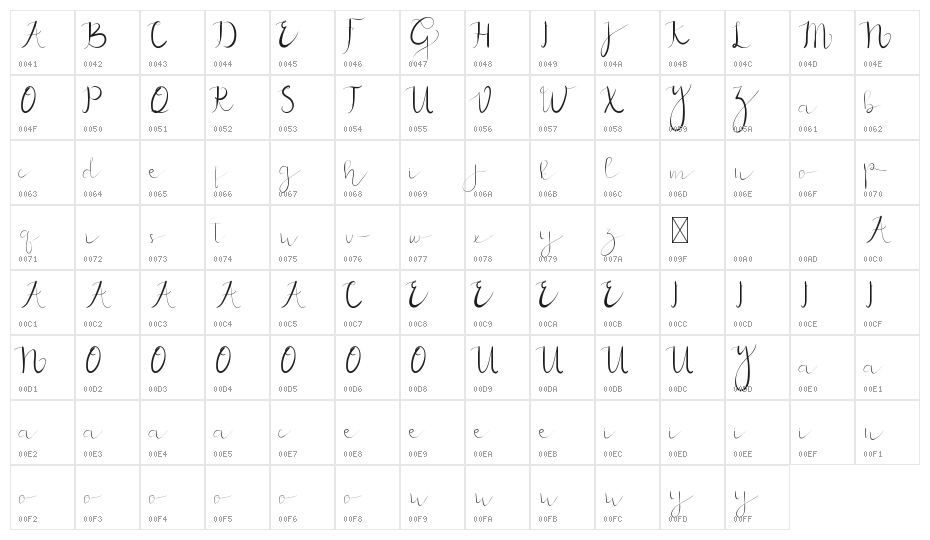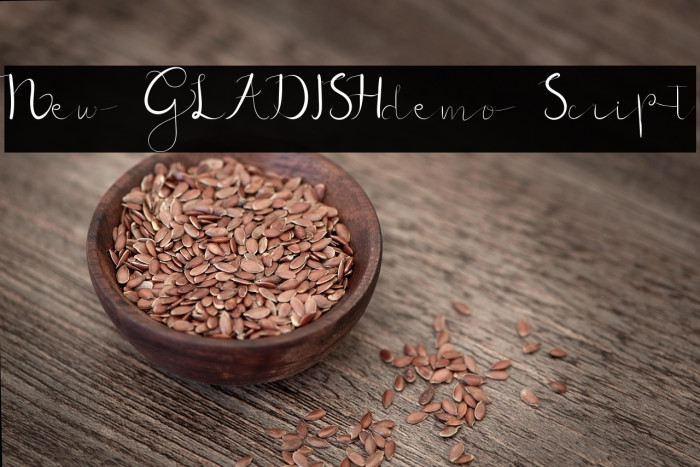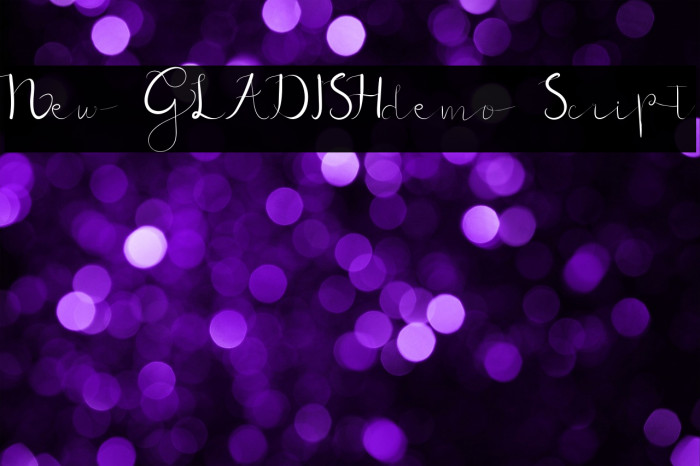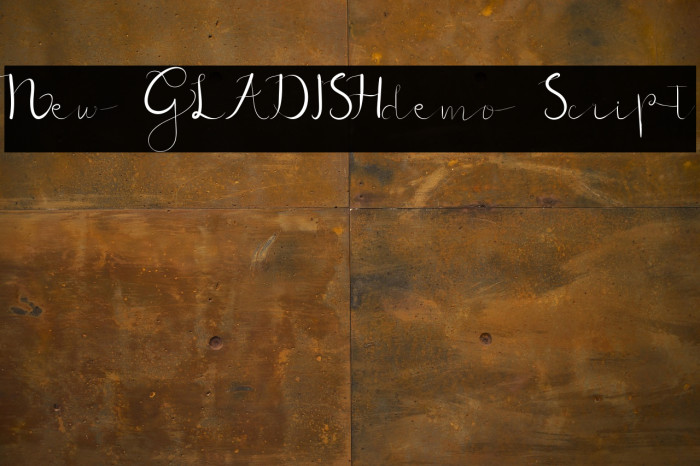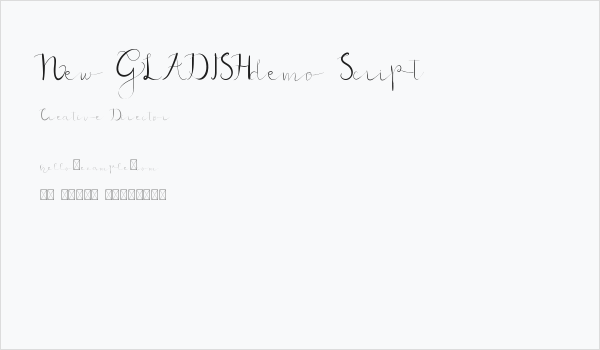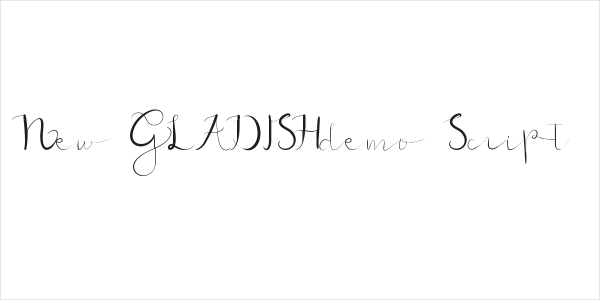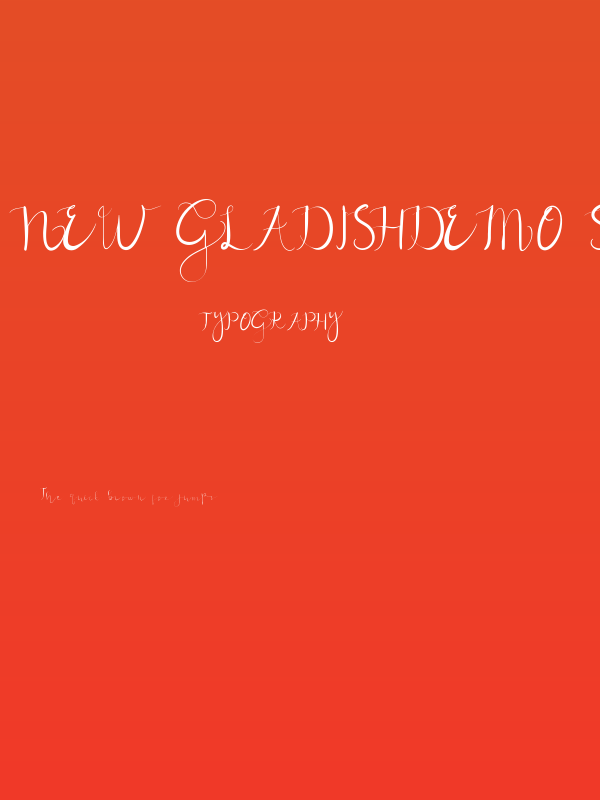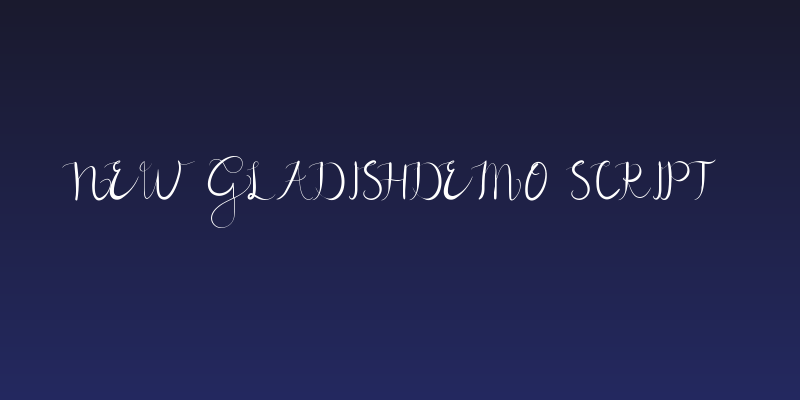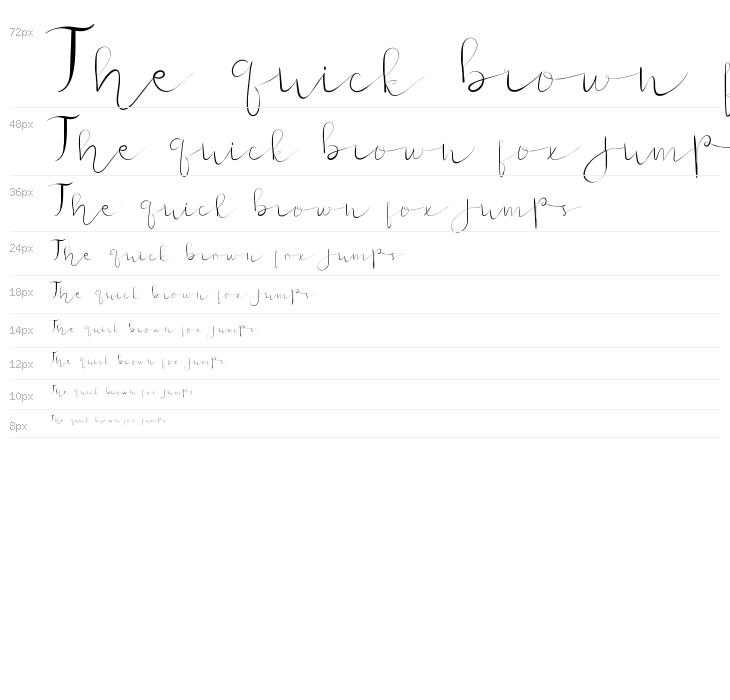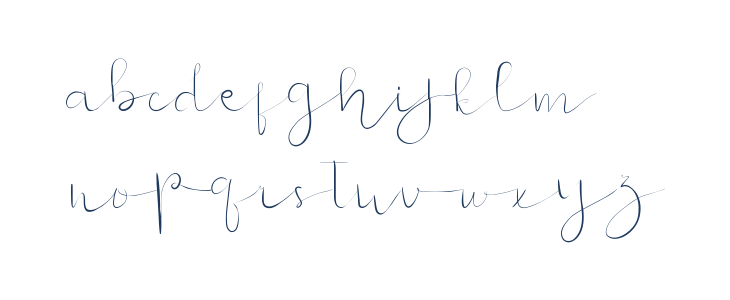
New GLADISHdemo Script Font
New GLADISHdemo Script Description
This elegant script font features a flowing, cursive style with a modern twist. The uppercase letters are bold and expressive, with sweeping curves and flourishes that add a touch of sophistication. The lowercase letters are more delicate, with thin lines and graceful loops that create a sense of fluidity and movement. This font has a high contrast between thick and thin strokes, enhancing its decorative appeal. The character spacing is normal, allowing each letter to stand out while maintaining a cohesive look. This font is perfect for projects that require a touch of elegance and style.